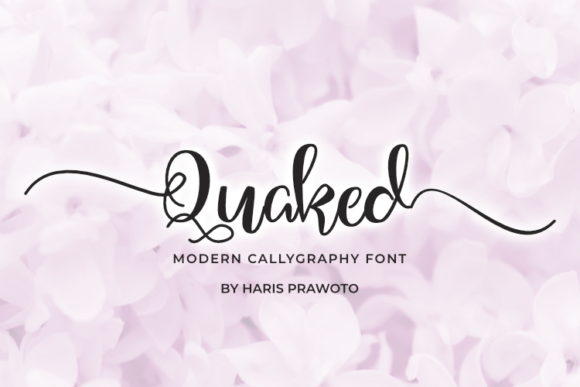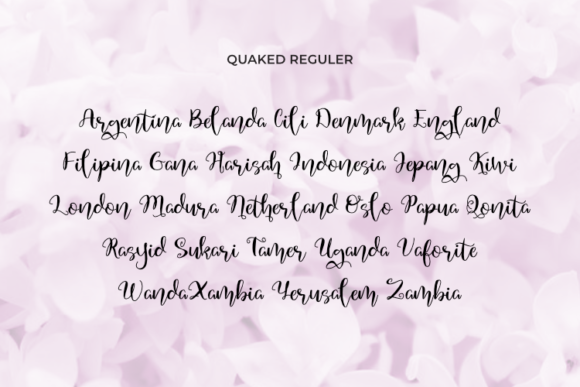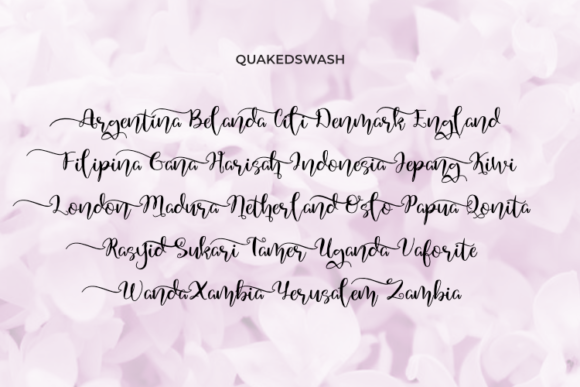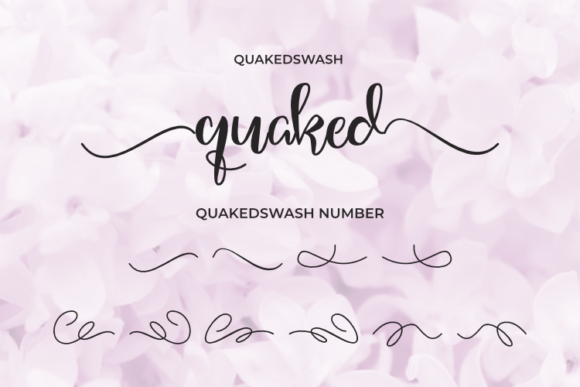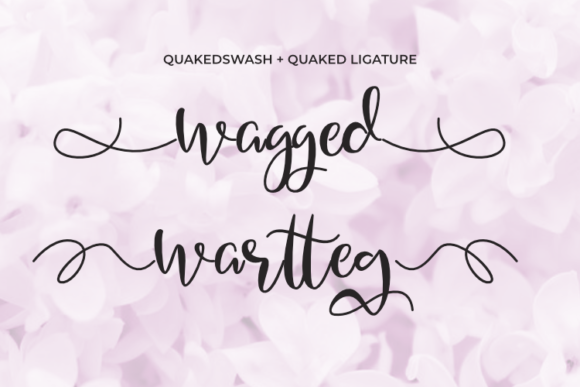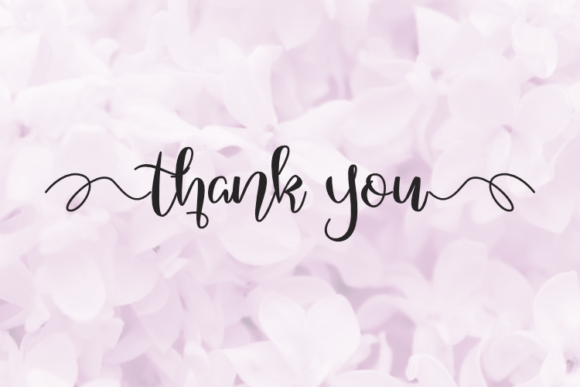
HomeScript FontsQuaked Font Script Fonts Quaked Font FacebookXPinterestWhatsApp Quaked Font Poster 2 Quaked Font Poster 3 Quaked Font Poster 4 Quaked Font Poster 5 Quaked Font Poster 6 About Quaked Font Quaked is a modern calligraphy font that looks natural & classy! Get inspired by its unique handwritten style. DOWNLOAD ON CREATIVE FABRICAThis font is sold and delivered by Creative Fabrica. Font Canyon may earn a commission if you buy through this link. People also explored Bridge Font Davossy Font Square Font The King Font Baxoe Font Luminously Font Hecta Font Wedding Font Berlins Script Font 271 0 TagsQuaked Font Previous articleThrones FontNext articleBuffalo Font LEAVE A REPLY Cancel reply Comment: Please enter your comment! Name:* Please enter your name here Email:* You have entered an incorrect email address! Please enter your email address here Website: Save my name, email, and website in this browser for the next time I comment. Personal Use Free Shkoder 1989 Personal Use Free Read more about this font Harmony Personal Use Free Read more about this font Delions Personal Use Free Read more about this font Rumaniaya Personal Use Free Read more about this font BLOG Free Fonts Risk: Why Free Fonts Can Be Dangerous for Designers Free Fonts Risk: Why Free Fonts Can Be Dangerous for Designers Using free fonts is a common practice in web and graphic design. However, the... Elegant Wedding Invitation Fonts – Handwritten & Script Fonts Using Fonts in Digital Marketing: Tips to Strengthen Your Brand Identity Best Fonts for YouTube Videos: Make Your Thumbnails Stand Out